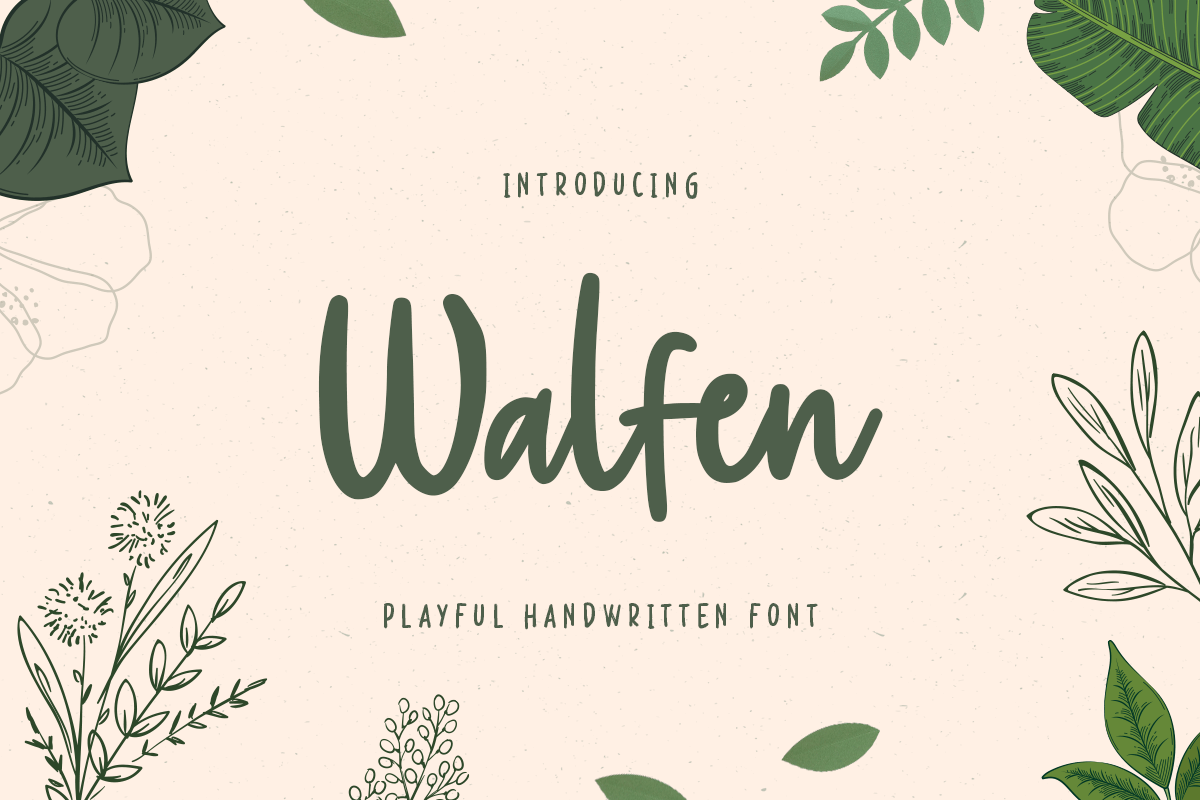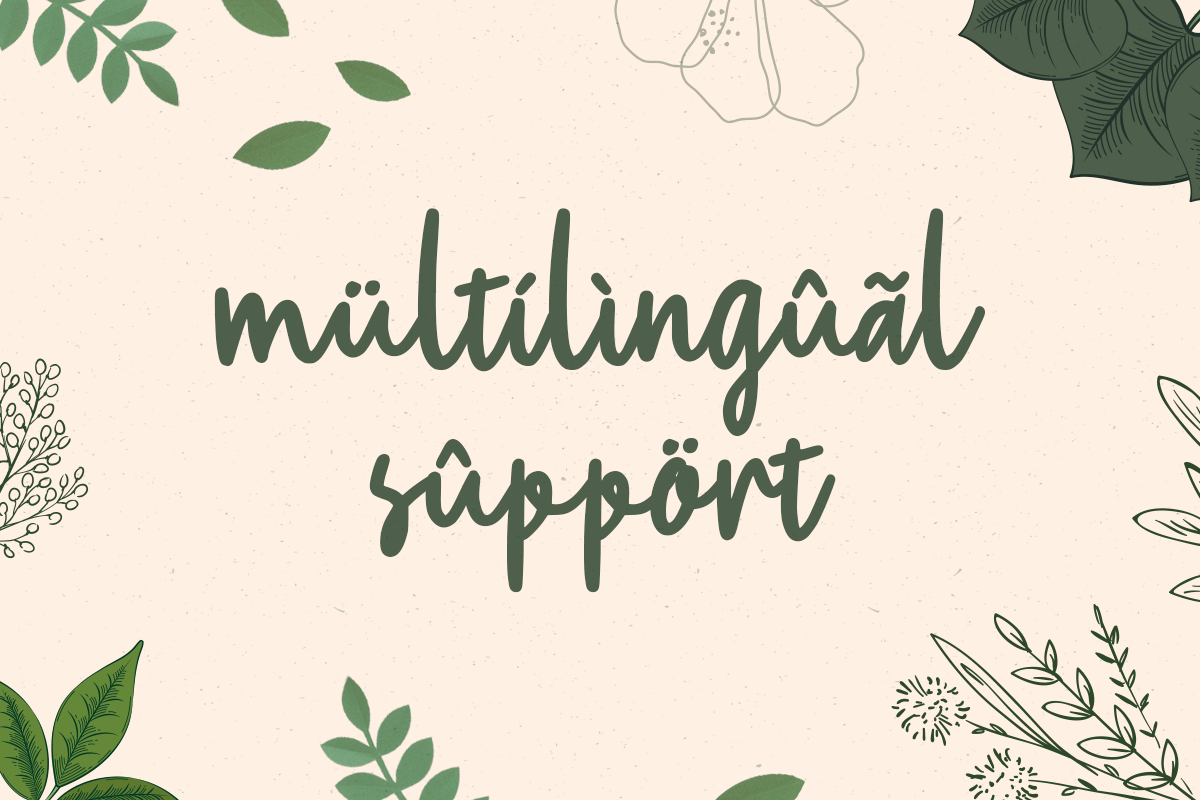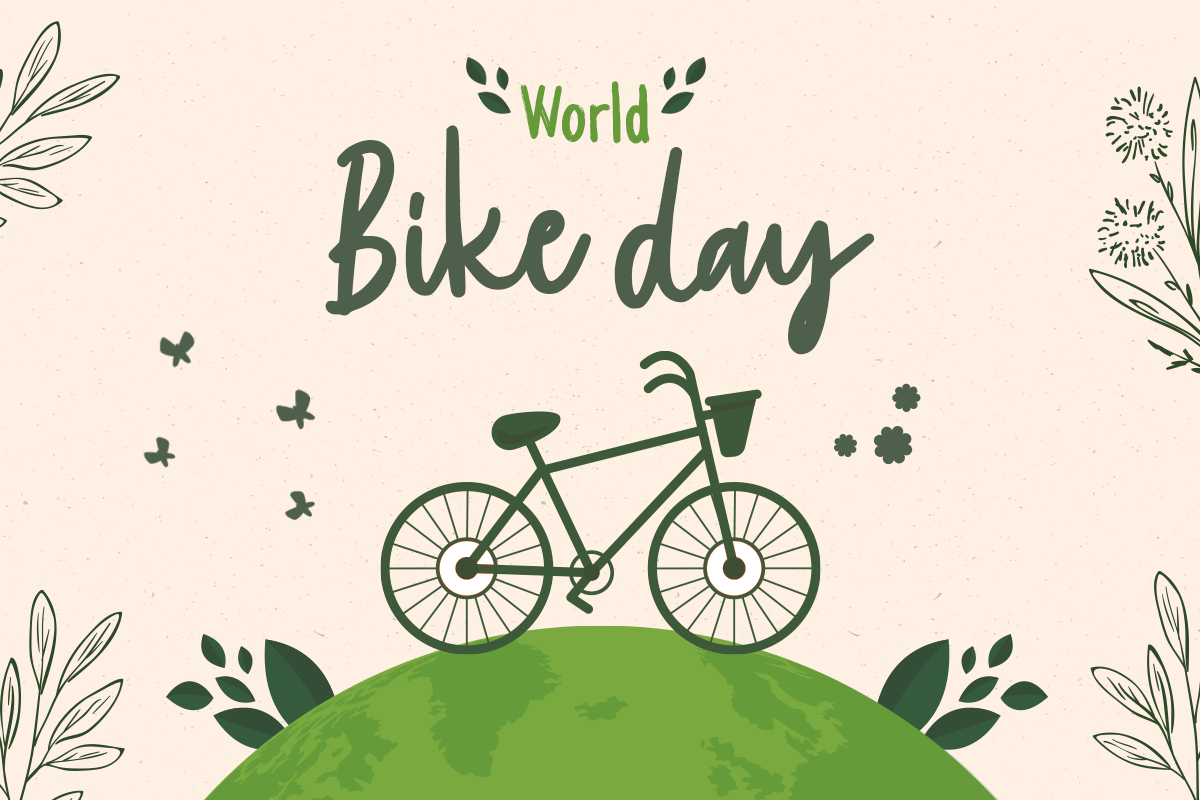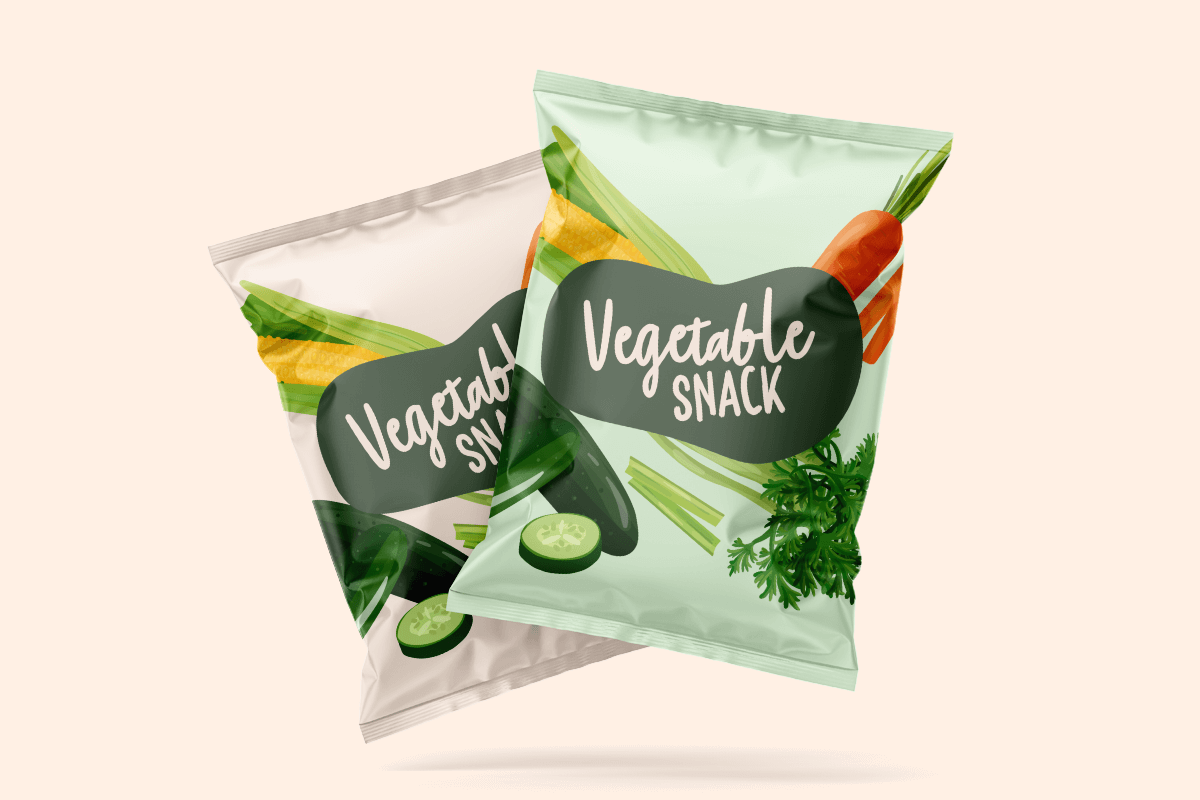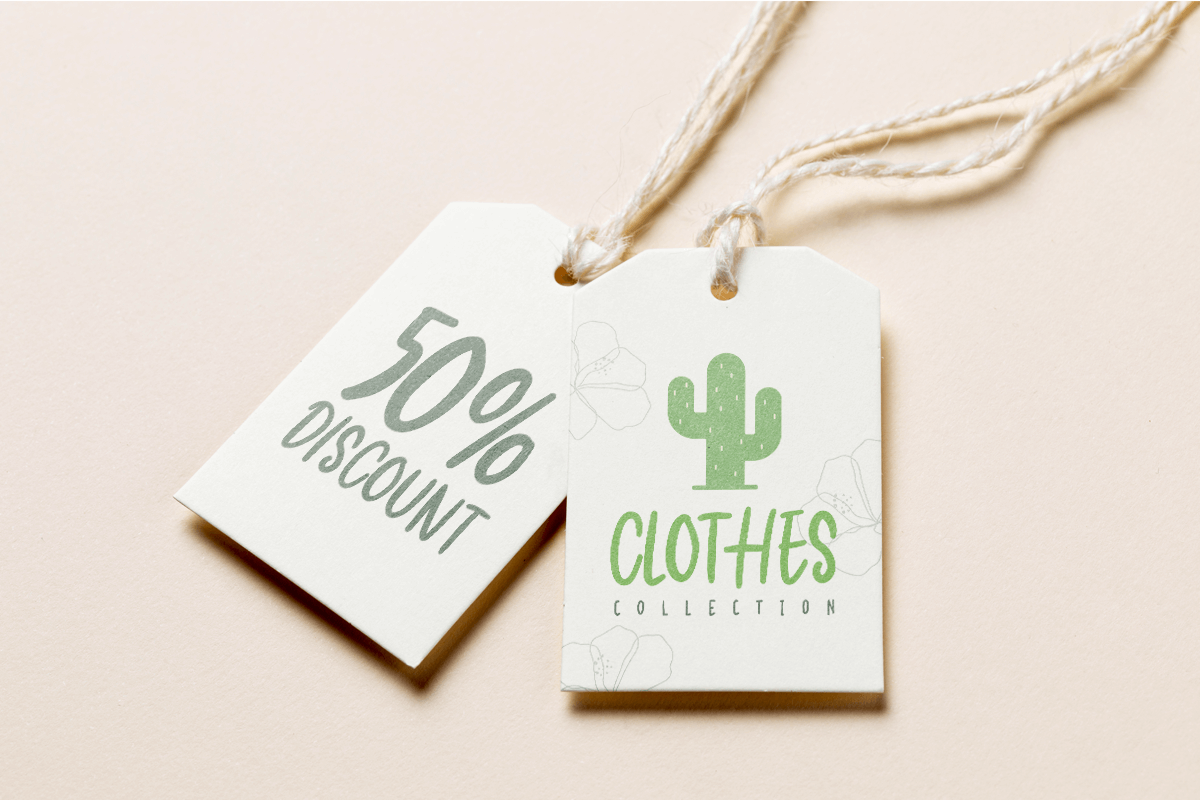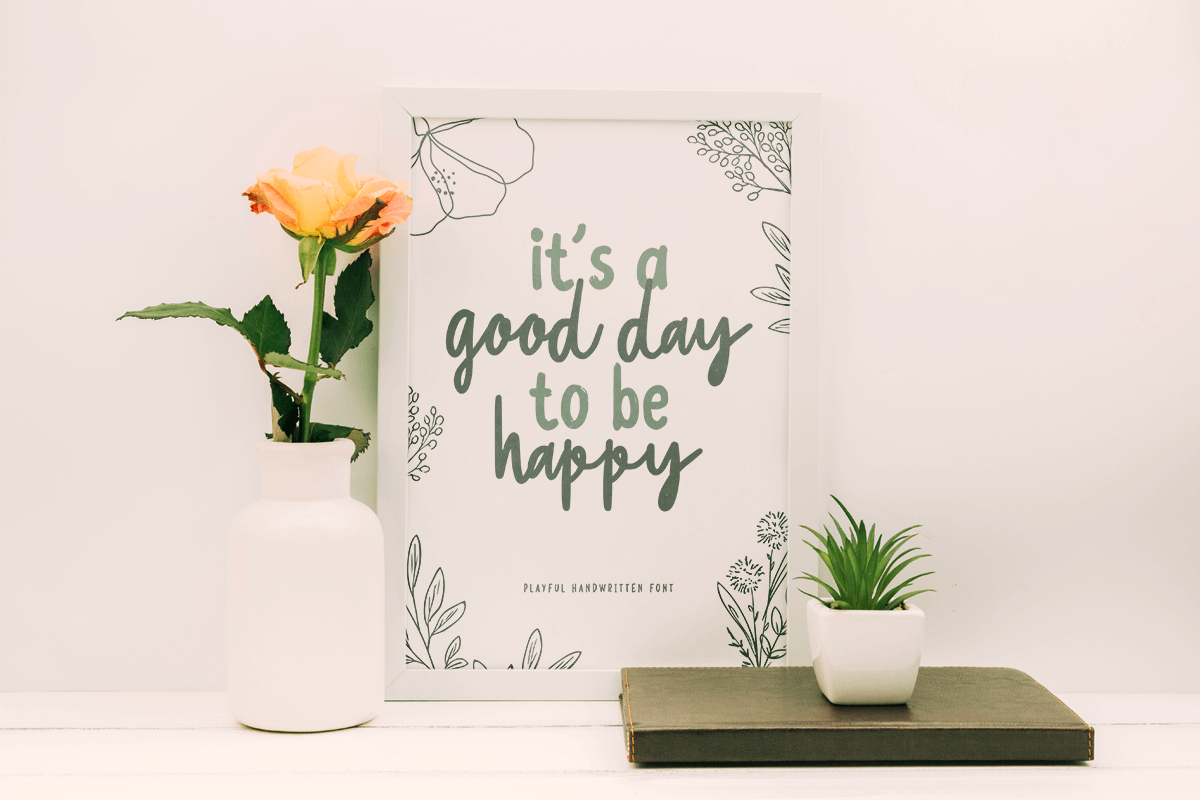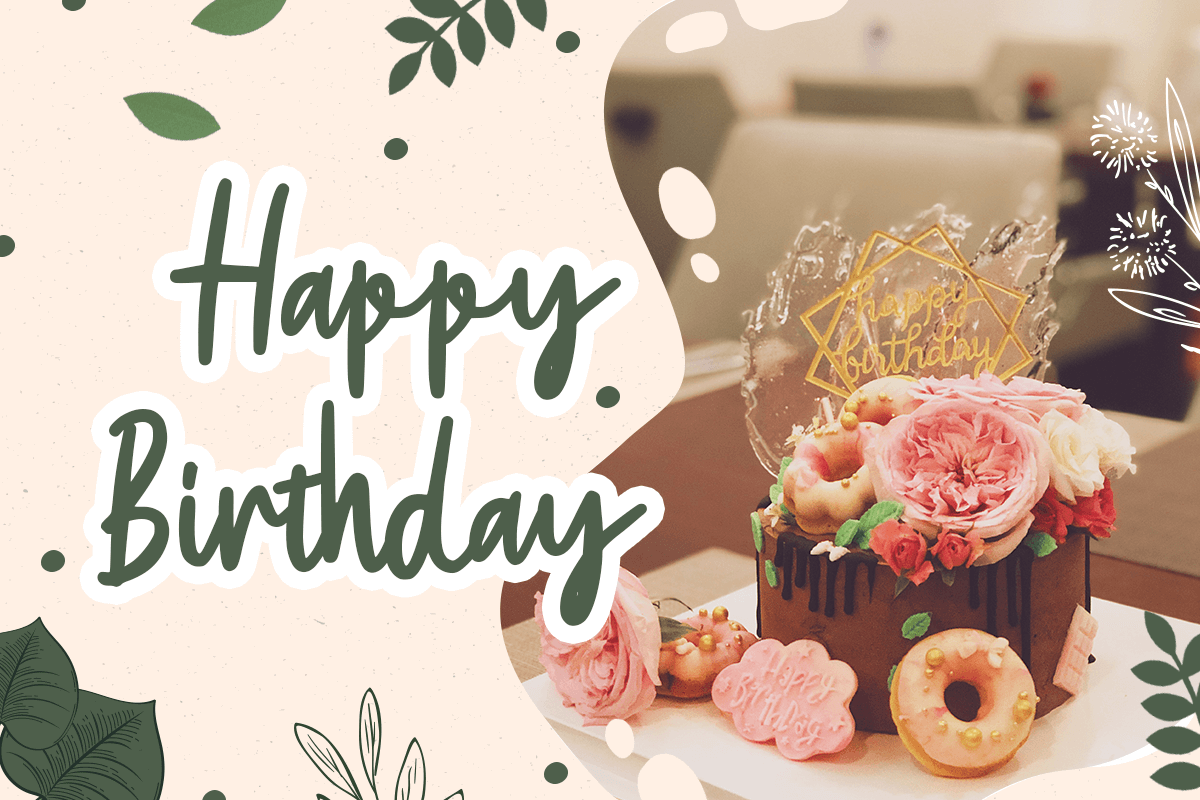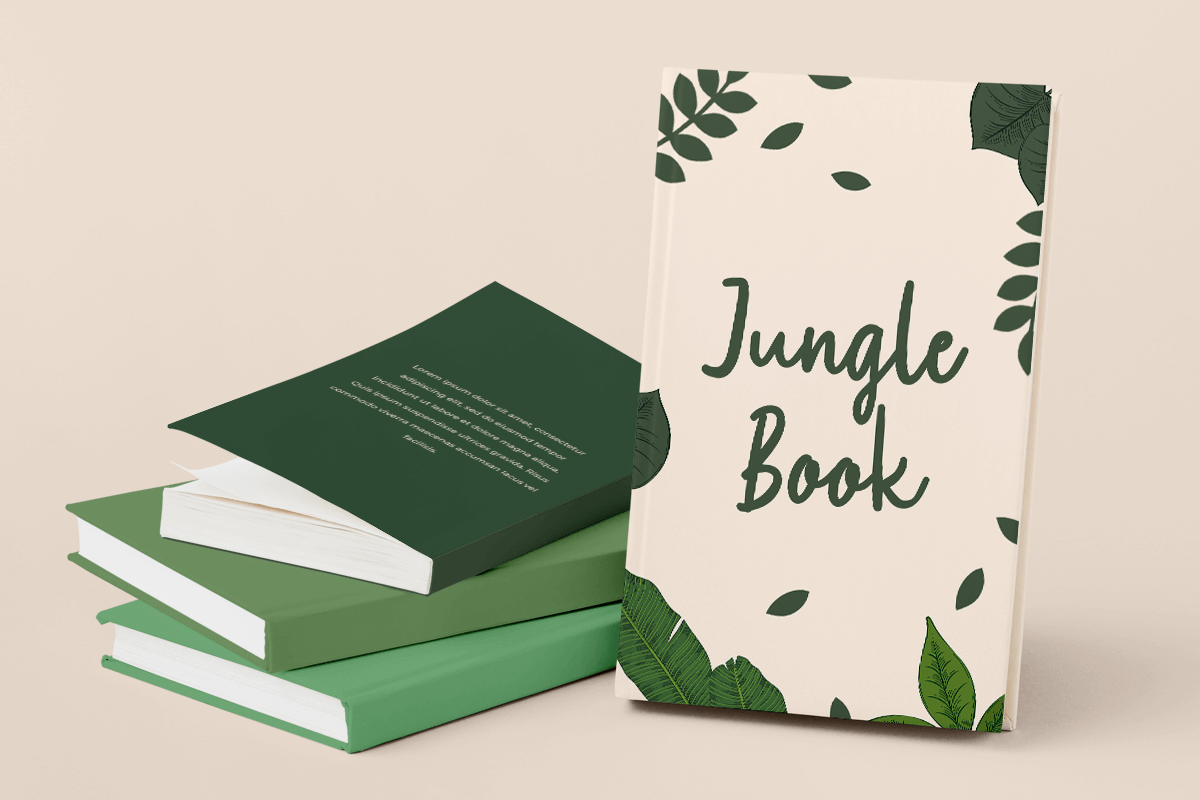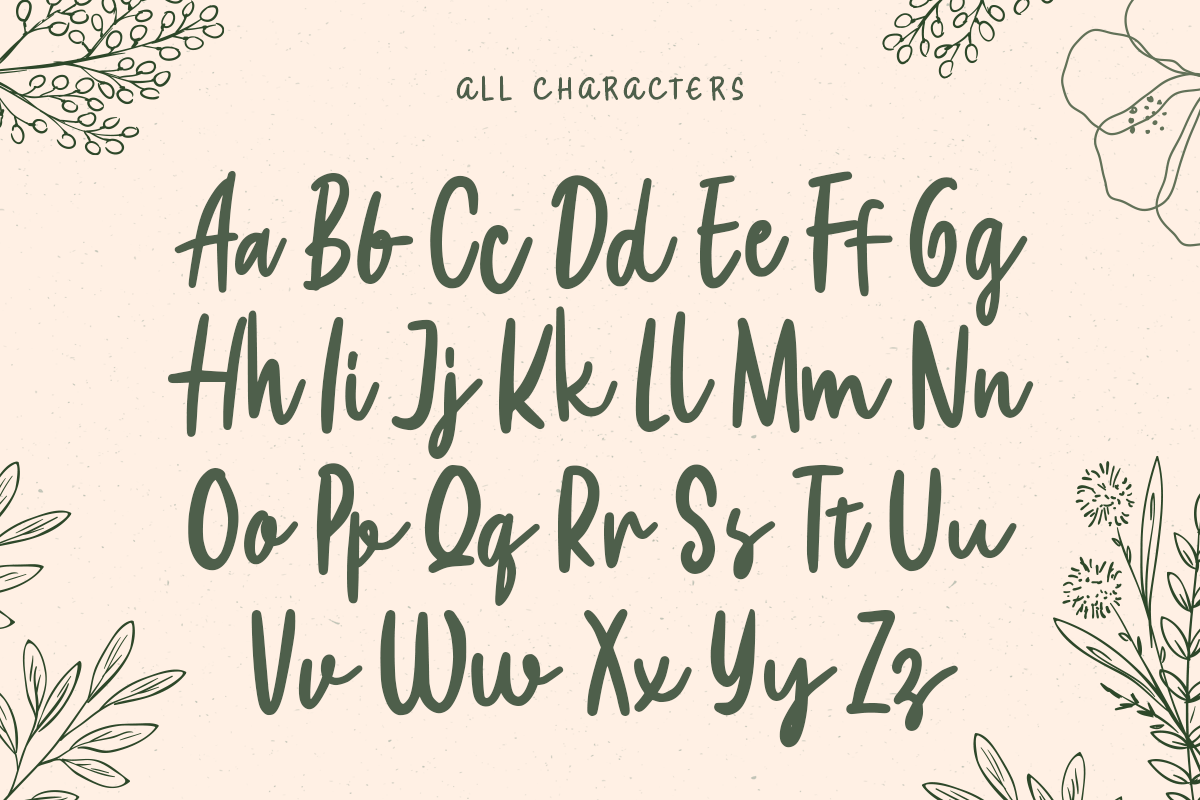
Walfen
-Playful Handwritten Font
Walfen a Playful Handwritten Font. Inspired from beauty and feminine style very good for signature, stationery, logo, typography quotes, magazine or book cover, website needs.